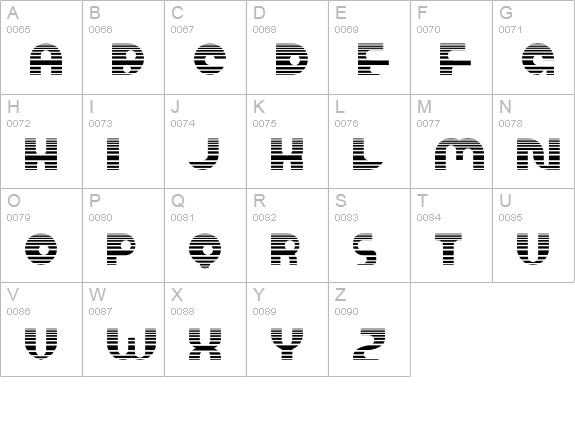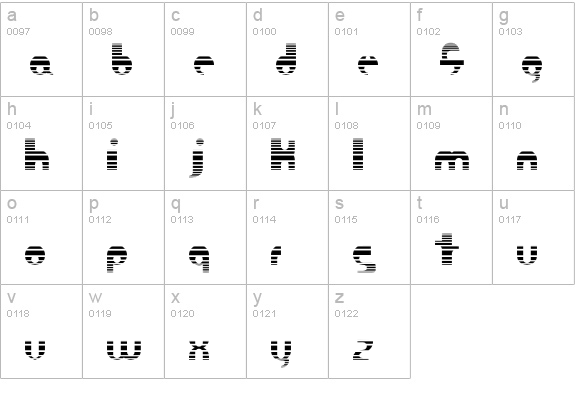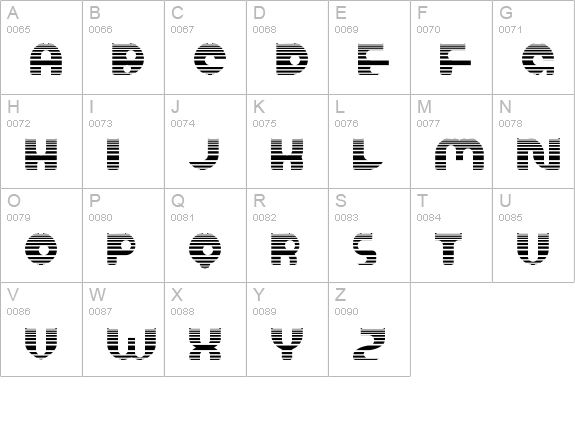
Ombre-SemiBold Font Details
Ombre-SemiBold is a sub-bold, structured variant in the Ombre typeface family \xE2\x80\x94 well suited to sub-headlines and emphasised passages.
Ombre-SemiBold is a stunning and versatile font that exudes elegance and modernity. Its bold and eye-catching design makes it perfect for a wide range of design projects, from branding to editorial design. The sleek and sophisticated look of Ombre-SemiBold is sure to make your designs stand out and leave a lasting impression. The best part? Ombre-SemiBold is available for free download at FontsMarket.com. This means you can access this beautiful font without spending a dime, making it a valuable addition to your font collection. Whether you're a designer looking for a stylish new typeface or a business owner wanting to elevate your branding, Ombre-SemiBold is the perfect choice for all your design needs. Download it today and start creating stunning designs with this elegant and modern font.